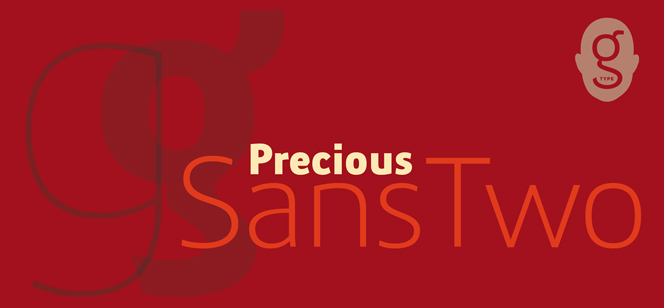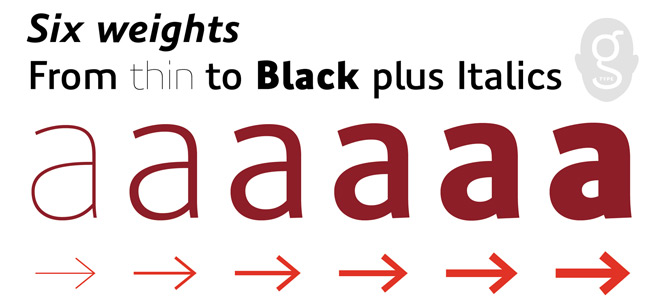
Precious Sans Two
Precious Sans Two by Nick Cooke (G-Type foundry) is a contemporary Sans Serif type family – a thorough revision of the 2002 PostScript Precious Sans font. The new Precious Sans Two family is stylish and fine; it features narrow width, low stroke contrast, large x-height typical for the Gothic Sans style. It comes in six weights (from Thin to Black) and their italics. All the letterforms are completely redesigned, enhanced, re-proportioned, and respaced. The original glyphs (f, g, I) are available now as a separate stylistic alternate. Multilingual support is provided (extended Latin language support for Western & Central Europe, the Baltics & Turkey) along with the wide range of OpenType options: small caps, an extensive set of discretionary ligatures, proportional & tabular figures, and many others. Twenty directional single and double arrows are added to the character set as a further enhancement.
Precious Sans Two type family is distinctive, contemporary, legible and classy, designed to find application in the professional print, web or digital typography.